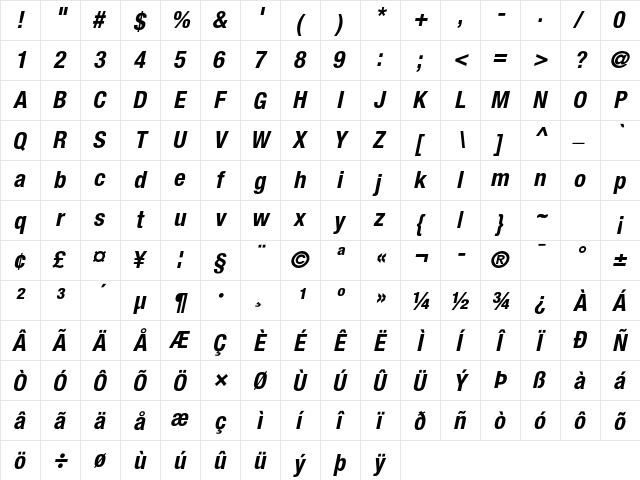
Helvetica Neue LT Pro 77 Bold Condensed Oblique
Design Context for Helvetica Neue LT Pro Typeface
Helvetica Neue LT Pro takes a measured approach to typography — its balanced proportions and neutral character make it a reliable workhorse for both digital and print work. The dynamic lean of this cut emphasises speed and emphasis in any layout. The heavy weight commands attention and anchors typographic hierarchies. The condensed width makes it efficient for tight spaces without sacrificing legibility.
Pro Tip: Use Helvetica Neue LT Pro for emphasis, pull quotes, and subheadings where its slanted energy can add rhythm to the layout.